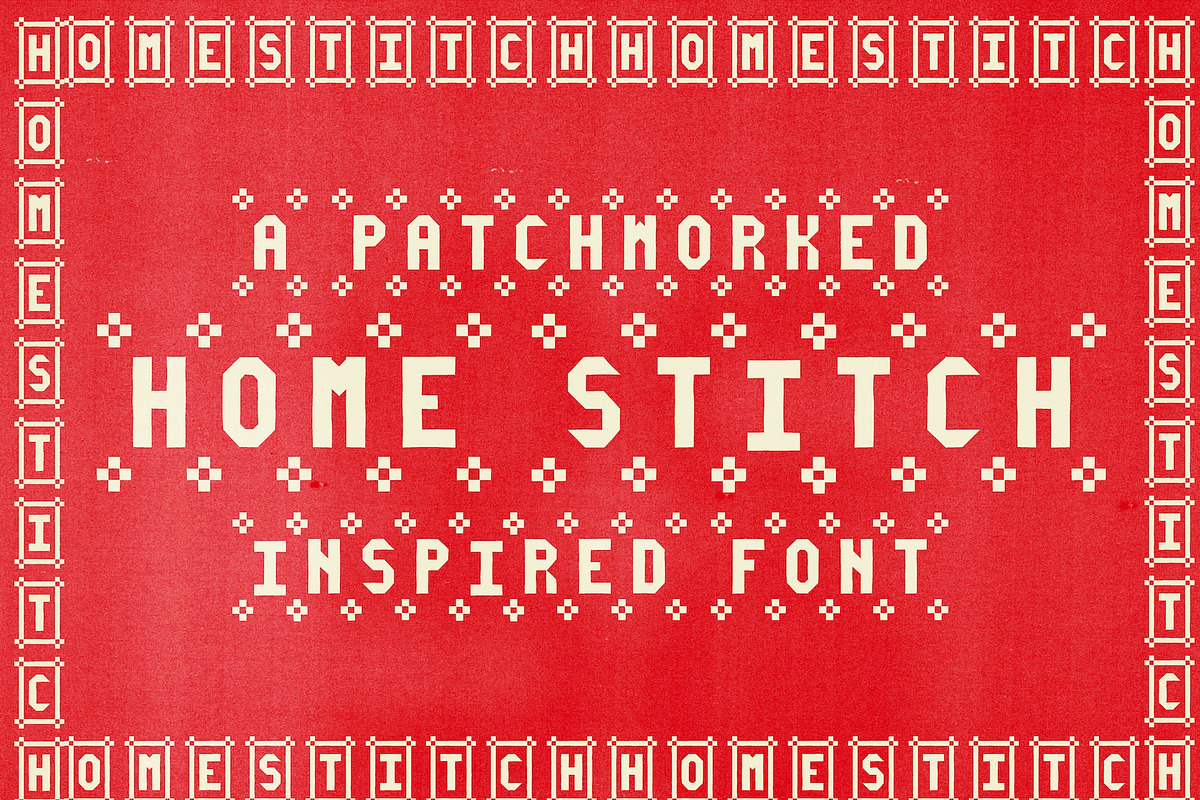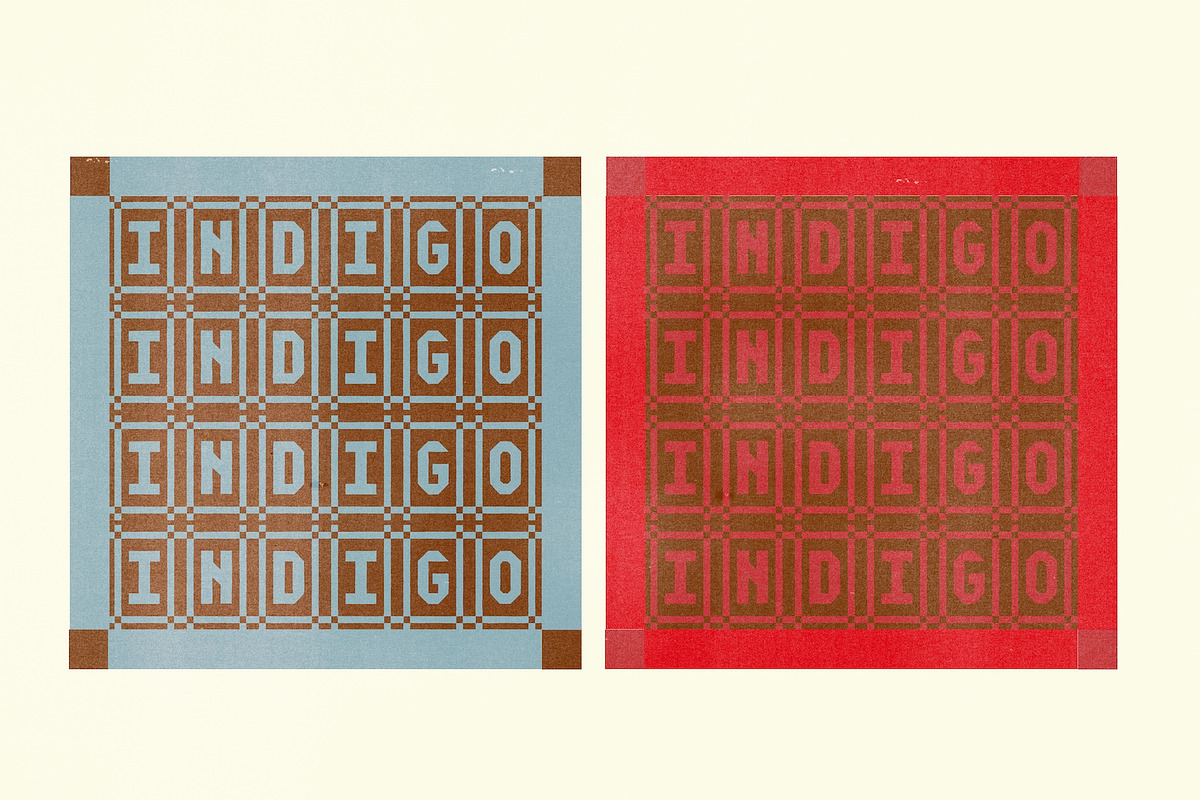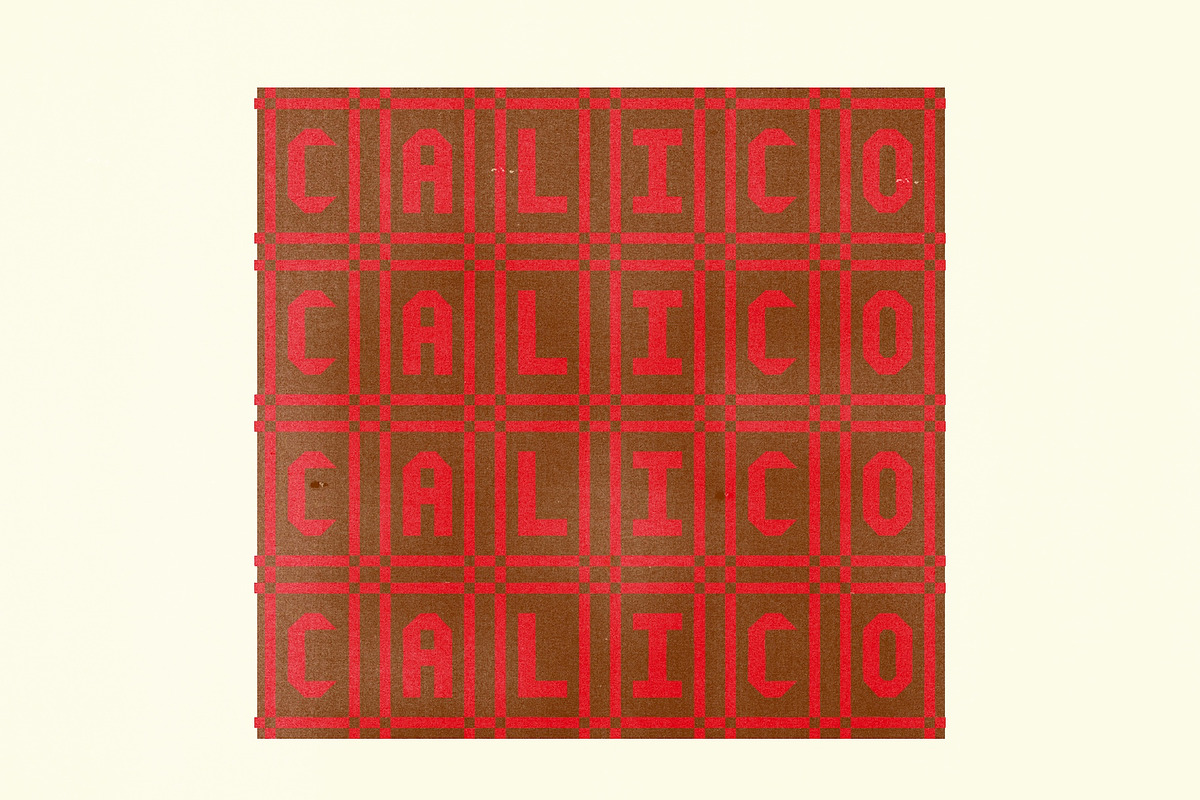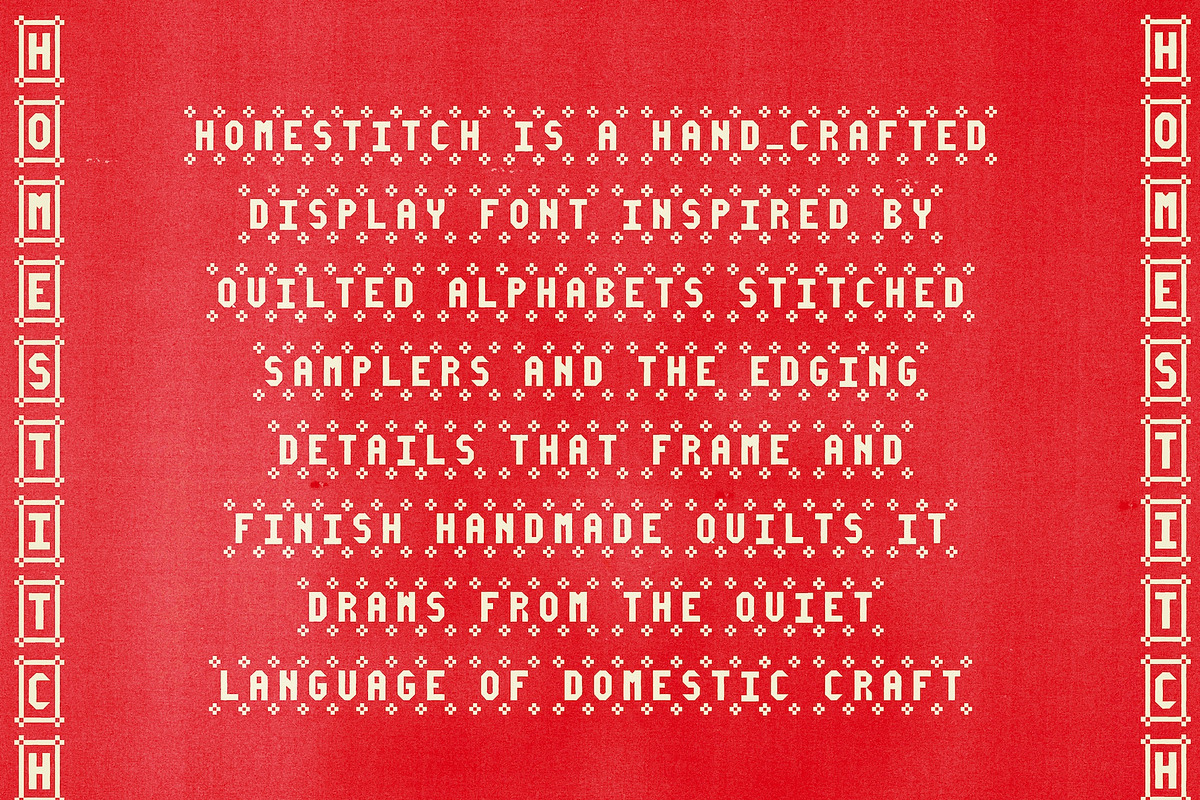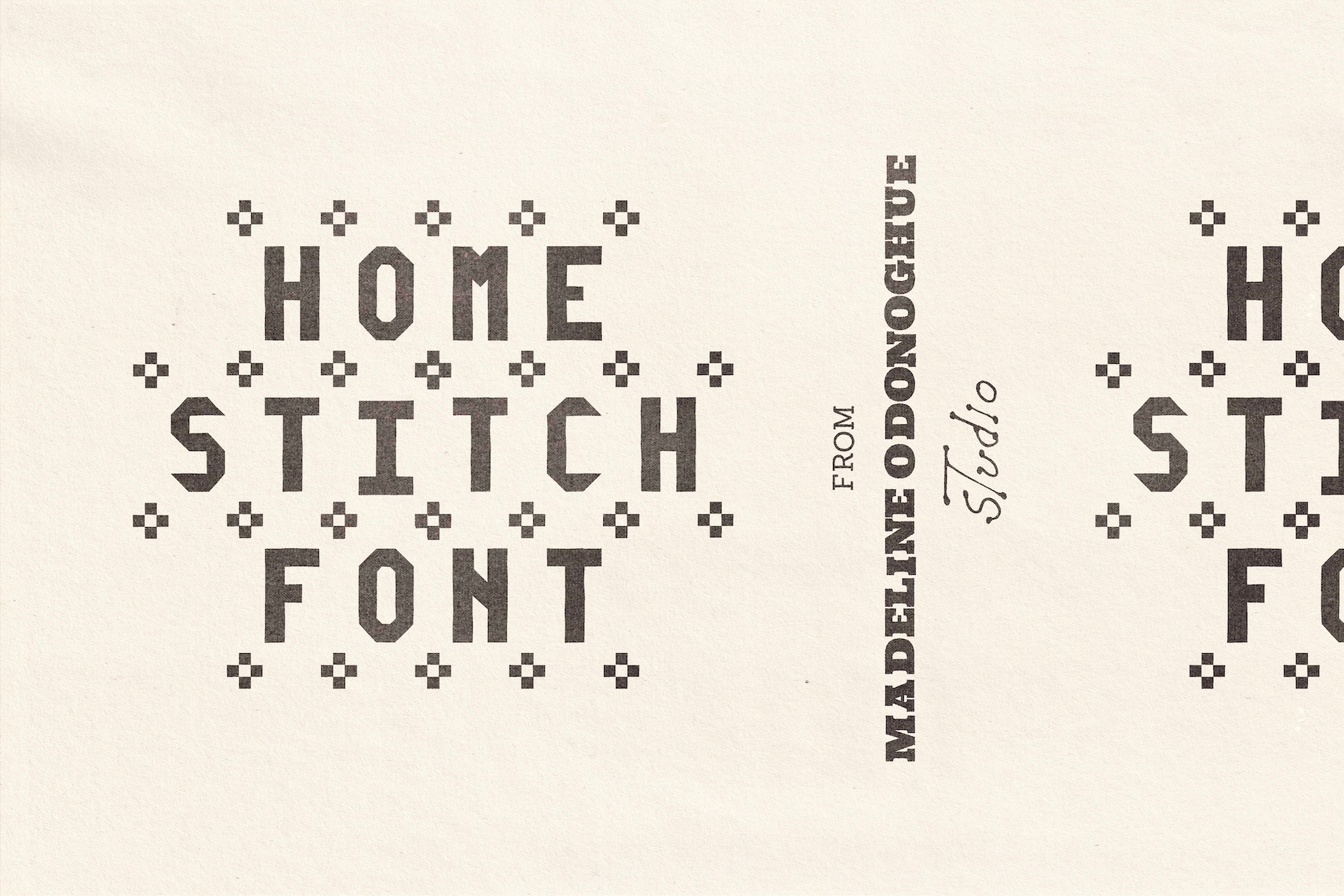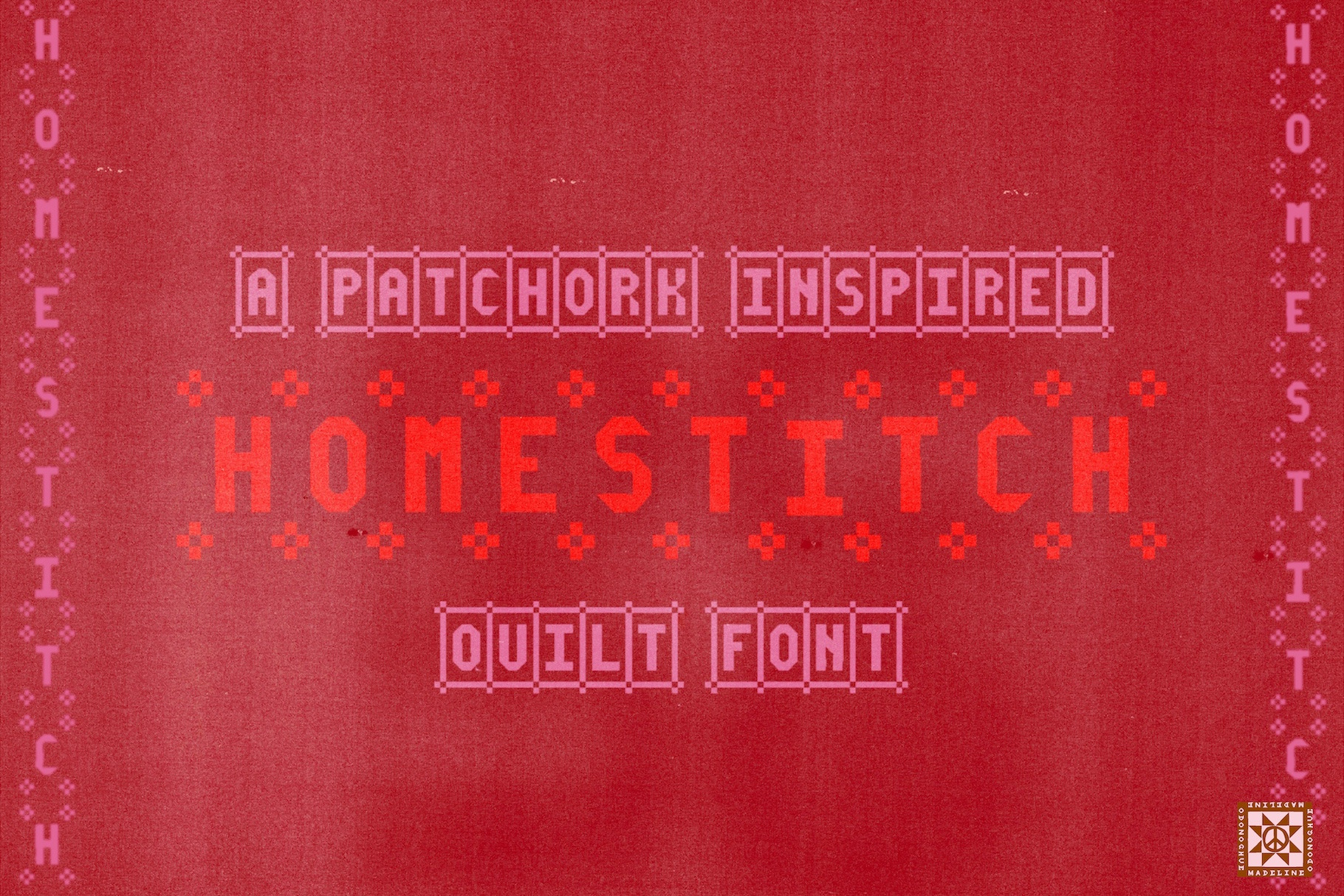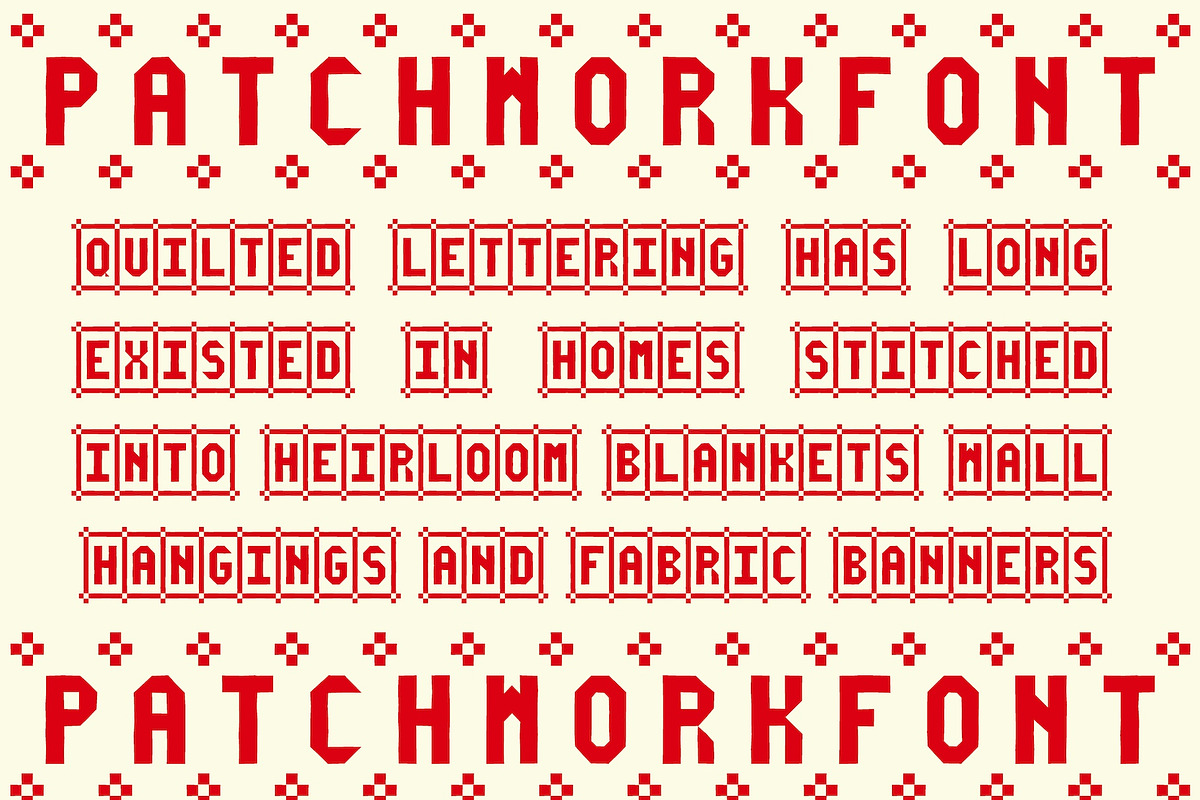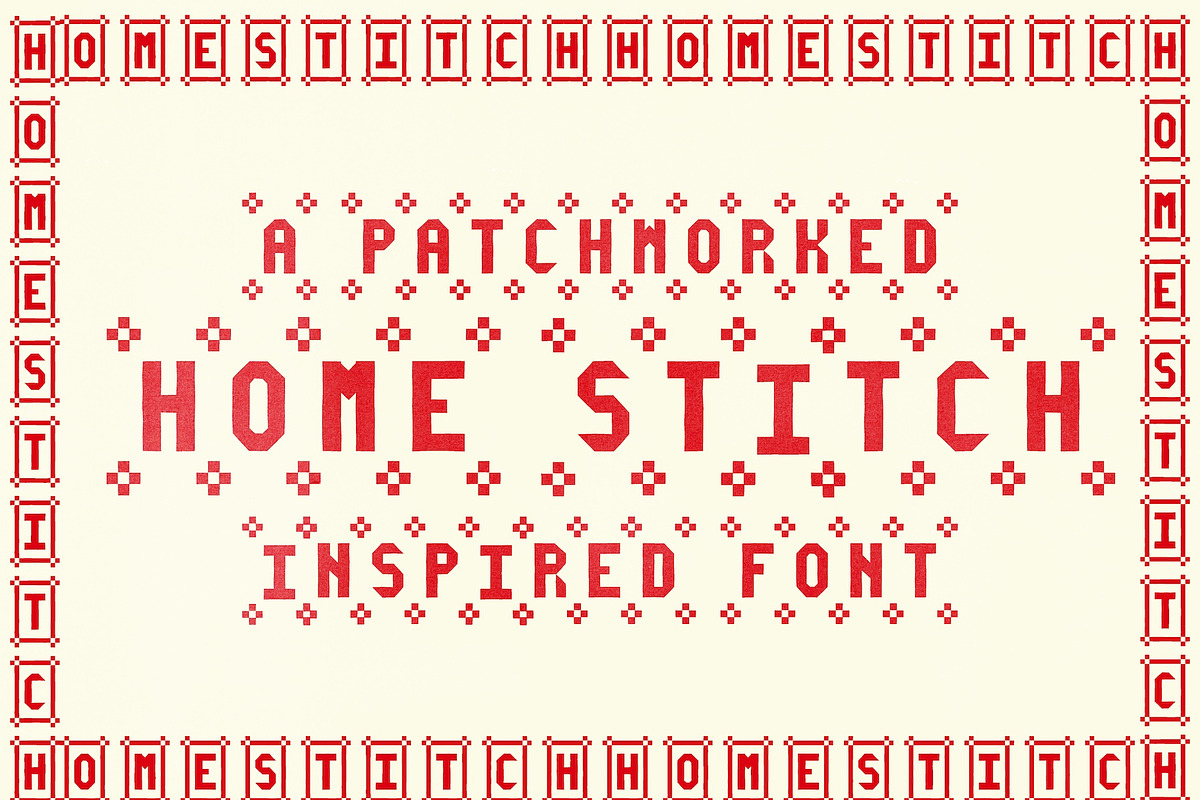
HomeStitch Hand Crafted Font
Handmade Patchwork Alphabet Font Inspired by Quilt Borders & Textile Craft.
HomeStitch is a handcrafted display font inspired by quilted alphabets, stitched samplers, and the decorative edging that frames and finishes handmade quilts. It brings the softness of fibre arts into digital type — letters that feel cut from fabric, pieced into blocks, and bordered with care.
Rooted in the visual language of domestic craft, HomeStitch draws from heirloom blankets, wall hangings, and hand-sewn banners where alphabets were assembled slowly and intentionally. This font carries that warmth forward — tactile, nostalgic, and grounded in materiality.
Each character feels gently constructed rather than digitally drawn. Edges are slightly softened, shapes sit with subtle irregularity, and spacing echoes seam allowances and quilt borders. These imperfections are intentional — reflecting the humanity and charm of handmade work.
HomeStitch is about home, memory, and the language of making.
Textile-inspired branding
Handmade product packaging
Craft businesses & small makers
Quilt-themed projects
Editorial layouts with a vintage feel
Homeware, stationery & art prints
Etsy shops & handmade brands
Uppercase A–Z (open letterforms with subtle quilt detailing)
Lowercase a–z (framed, block-style quilt letters)
This is a display font designed for creative, graphic, and decorative use.
HomeStitch is purposefully imperfect. Slight variations in alignment and edge softness are intentional — inspired by quilt borders, stitched seams, and hand-guided fabric cuts.
For best results, experiment with letter spacing and line spacing to create your own patchwork rhythm and quilt-like composition.
HomeStitch is both a tool and a tribute — celebrating quilted alphabets, textile edging, and the enduring beauty of craft stitched into everyday life.